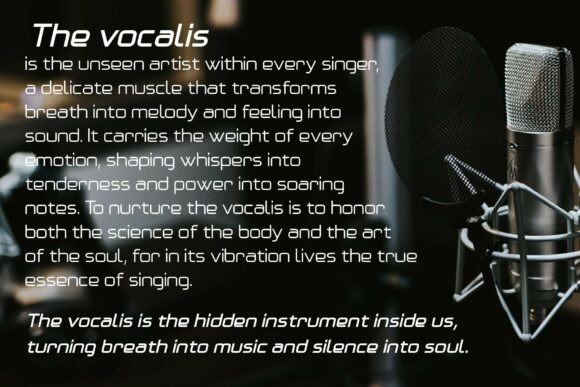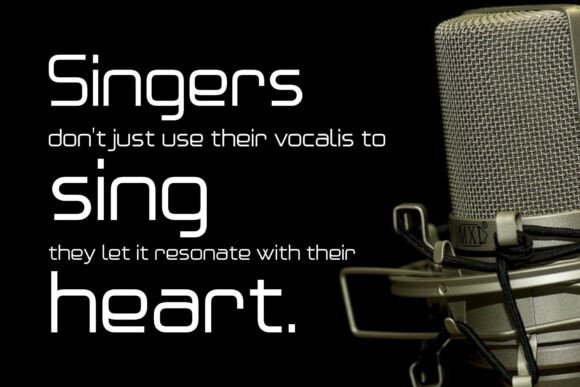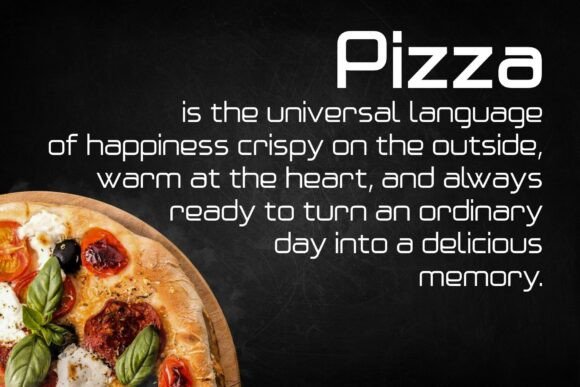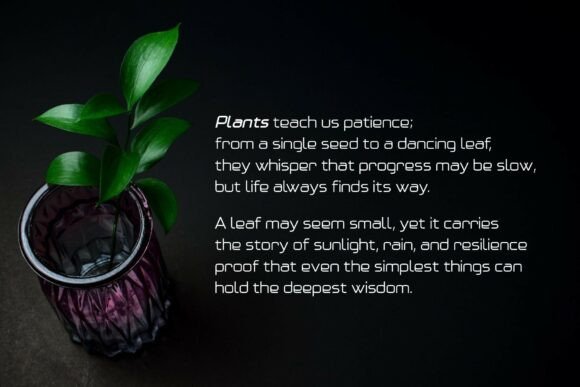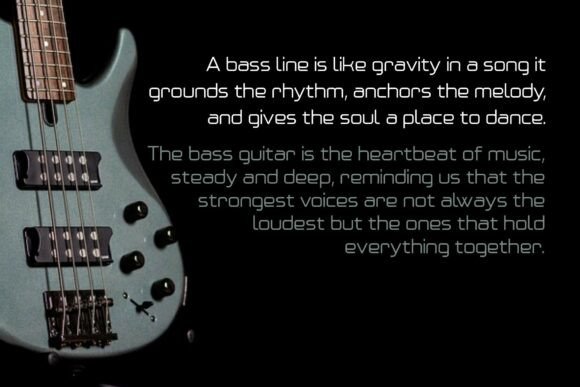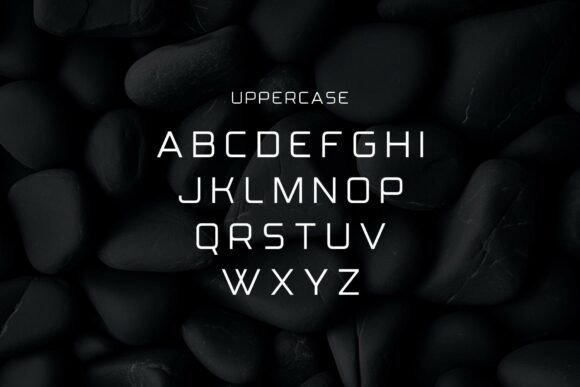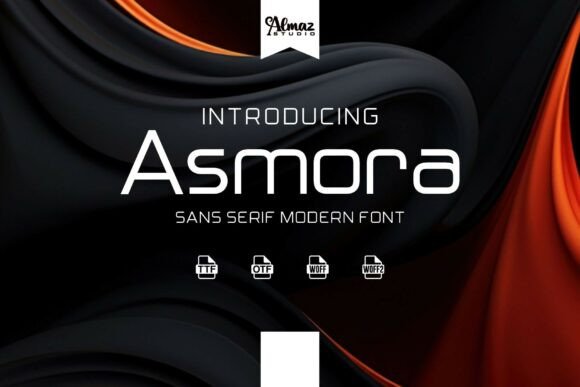
Introducing Asmora Font: The Epitome of Modern Sans-Serif Elegance
In the realm of typography, few fonts manage to strike a balance between style, elegance, and readability. Asmora Font, a modern sans-serif typeface, achieves this delicate equilibrium with remarkable finesse. Its sleek, elegant, and contemporary design makes it an ideal choice for a wide range of applications, from branding and technology projects to corporate identity, websites, mobile applications, posters, editorials, and premium design layouts.
The Design Philosophy of Asmora
Asmora’s design is characterized by smooth curves, clean strokes, and refined letterforms that exude sophistication and modern minimalism. Each character is meticulously crafted with a balanced structure, ensuring excellent readability without compromising on style. The font’s futuristic appearance is both stylish and approachable, making it perfect for designs that aim to convey innovation and elegance.
Versatility and Application
One of the standout features of Asmora is its versatility. Its clean and professional look makes it suitable for both digital and print use. Designers can use Asmora to create stunning website interfaces, high-tech dashboard displays, and futuristic gaming logos. The font’s wide letterforms allow for generous letter-spacing (kerning), which creates a premium, high-end “luxury tech” look when used for headers.
Why Asmora Excels
Asmora excels in environments where readability and “coolness” are equally important. In today’s digital landscape, a font must be able to convey a sense of style and sophistication while ensuring that the text is easily readable. Asmora achieves this with remarkable success, making it an excellent choice for:
• Branding: Create a lasting impression with Asmora’s sleek and elegant design.
• Technology projects: Convey innovation and futurism with Asmora’s modern sans-serif style.
• Corporate identity: Establish a professional and sophisticated image with Asmora.
• Websites and mobile applications: Enhance user experience with Asmora’s clean and readable design.
• Posters and editorials: Add a touch of elegance and sophistication to your designs.
• Premium design layouts: Create stunning visual effects with Asmora’s refined letterforms and balanced structure.
Design and Craftsmanship
Asmora’s design is a testament to the importance of craftsmanship in typography. Each letterform is carefully crafted to ensure that the font is both aesthetically pleasing and highly readable. The font’s smooth curves and clean strokes create a sense of fluidity, making it perfect for digital use. The refined letterforms and balanced structure ensure that Asmora remains stylish and elegant, even at smaller font sizes.
Pairing Asmora with Other Fonts
One of the advantages of Asmora is its versatility when it comes to pairing with other fonts. Its clean and modern design makes it easy to pair with a wide range of typefaces, from serif fonts to script fonts. Designers can experiment with different pairings to create unique and visually appealing combinations that enhance their designs.
In conclusion, Asmora Font is a modern sans-serif typeface that embodies the perfect blend of style, elegance, and readability. Its sleek and contemporary design makes it an excellent choice for a wide range of applications, from branding and technology projects to corporate identity, websites, mobile applications, posters, editorials, and premium design layouts. With its versatility, clean design, and refined letterforms, Asmora is sure to become a go-to font for designers and crafters looking to create stunning visual effects.
Whether you’re a seasoned designer or a crafty DIY enthusiast, Asmora Font is an excellent addition to your typography arsenal. Its ability to convey innovation, elegance, and sophistication makes it an ideal choice for designs that aim to make a lasting impression.